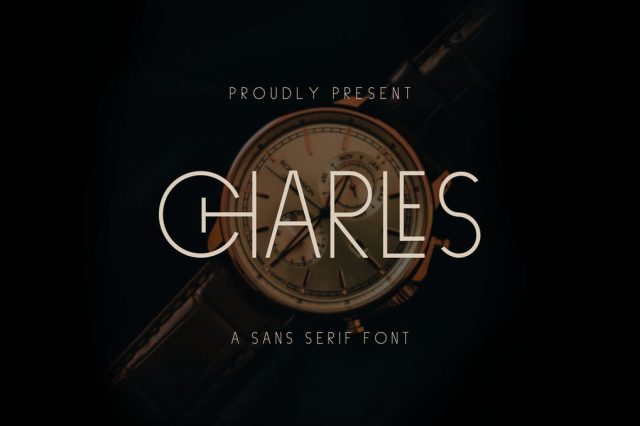
Charles An Elegant Sans Serif Font
Introducing Charles, is an Elegant Sans Serif Font has many purpose and suitable for fashion, luxury, invitation, wedding event, modern, classic modern, logotype, advertising and much more
Available Ligatures and Alternates